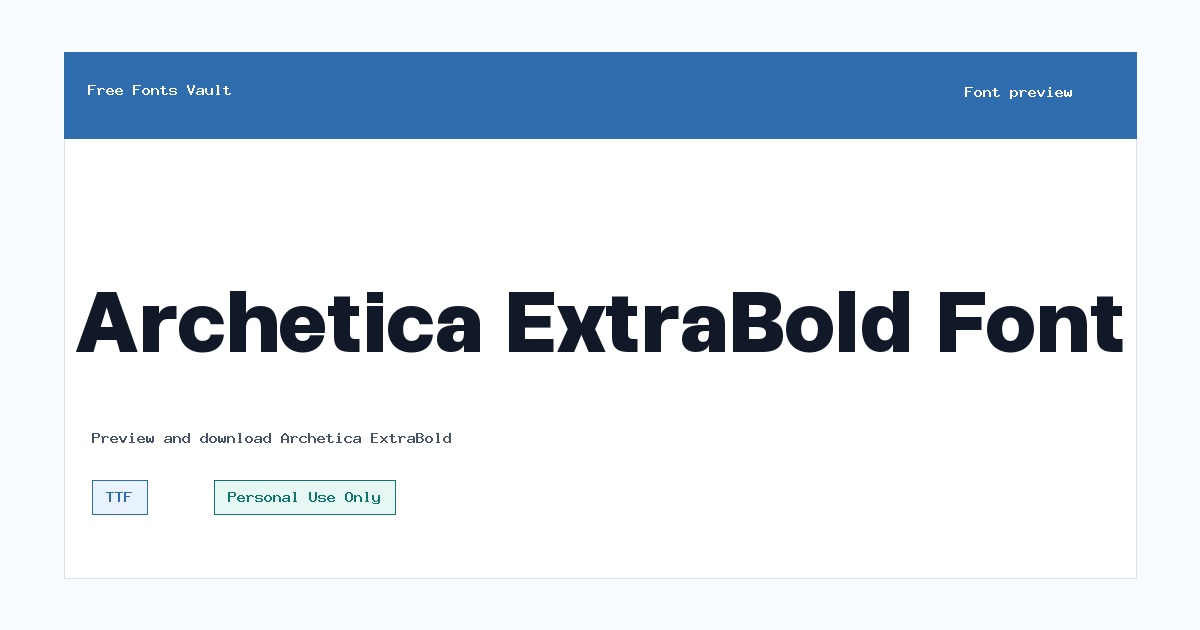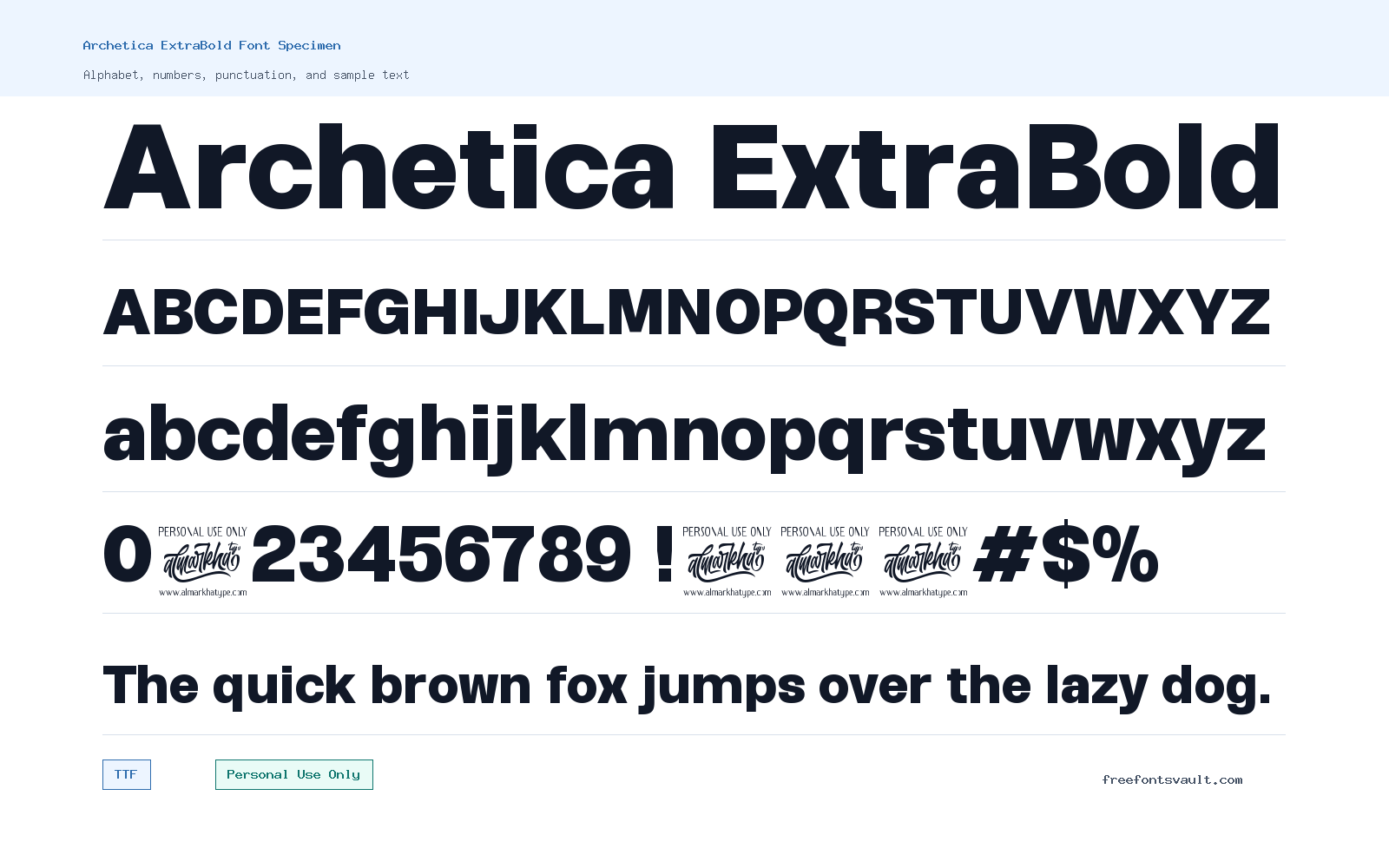
Archetica ExtraBold
- Designer Ridwan Fadilah & Malik Wisnu
- Foundry Almarkhatype
Archetica ExtraBold font.
Archetica ExtraBold is a heavy sans serif font with a clean, confident look for display design. It is a good choice when you need strong lettering for headlines, posters, logo drafts, social graphics, and other short text settings where the type should stand out quickly.
About Archetica ExtraBold
Archetica ExtraBold has the visual role of a bold display sans serif: it is built for impact rather than quiet body text. The ExtraBold weight gives words a firm presence, making it useful for titles, banners, packaging concepts, thumbnails, and large preview text. Because the available style is normal and heavy, it works best when the message is short and direct. Use it for names, headings, calls to action, section openers, and brand mockups where a compact line of text needs weight without relying on decoration.
For logo work, Archetica ExtraBold can be useful during the concept stage because the bold sans serif structure gives letters a solid base to customize. Try it in all caps for a firm headline feel, or use title case when you want the shape to feel less forceful. In poster and web mockup layouts, give the letters enough spacing and surrounding room so the ExtraBold weight does not crowd the design. If you are testing it in a font preview box, check short words, longer brand names, numbers, punctuation, and mixed-case combinations before deciding whether it fits your project.
- ExtraBold sans serif weight for strong headlines and display typography
- Suited to short, high-visibility text rather than long reading passages
- Practical for logo drafts, poster titles, web hero text, and social media graphics
- Poster headlines and event graphics
- Logo concepts and brand-name mockups
- Website hero headings and landing page drafts
- Social media titles, thumbnails, and quote graphics
- Packaging concepts, labels, and short display text
- Presentation covers and bold section dividers
Archetica ExtraBold is credited to Ridwan Fadilah & Malik Wisnu, with Almarkhatype listed as the foundry. The designer and license URL point to almarkhatype.com.
Use Archetica ExtraBold where weight and clarity matter more than long-form readability. It should work best at larger sizes, especially for headlines, cover text, and bold visual anchors. Pair it with a lighter, simpler sans serif for body copy so the page does not feel too heavy. If the design uses several bold elements already, keep the layout restrained: add white space, reduce competing colors, and avoid using the font for every text level. For web mockups, test the TTF and OTF versions in your design tool and check how the font renders at different sizes before exporting final artwork.
What kind of font is Archetica ExtraBold?
Archetica ExtraBold is a heavy sans serif display font. It is best suited to short text such as headlines, logos, posters, and bold design mockups.
Can I use Archetica ExtraBold for a logo?
Is Archetica ExtraBold good for body text?
It is better for display use than body text. The ExtraBold weight can feel too dense in long paragraphs, so use it for titles and pair it with a lighter text font for reading.
What should I pair with Archetica ExtraBold?
Pair it with a clean regular-weight sans serif for body text, captions, and navigation. A simple serif can also work if you want contrast, but keep the supporting font quieter than the headline.
Who designed Archetica ExtraBold?
The font is credited to Ridwan Fadilah & Malik Wisnu, with Almarkhatype listed as the foundry.